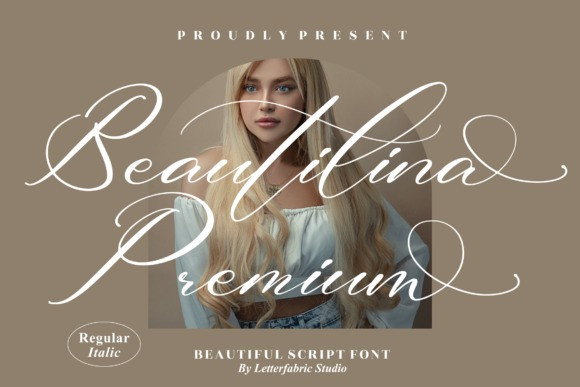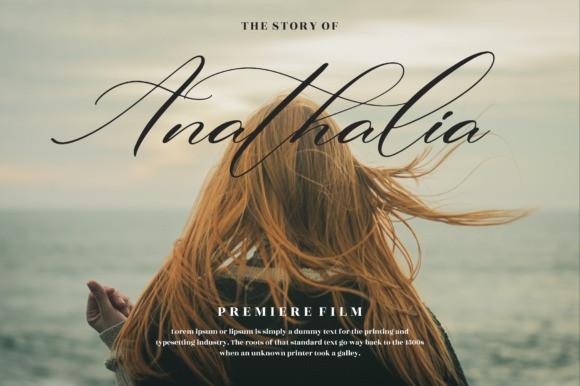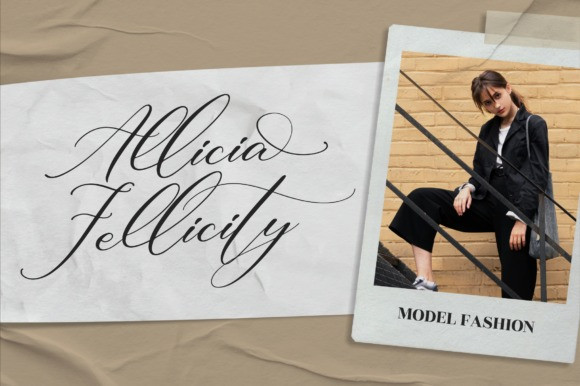
Beautilina Premium Font
Beautilina Premium is a sweet and delicate handwritten font. Dainty and joyful, this font will be ideal for writing wedding invitations, cards or any other design that may need a romantic, personalized touch!